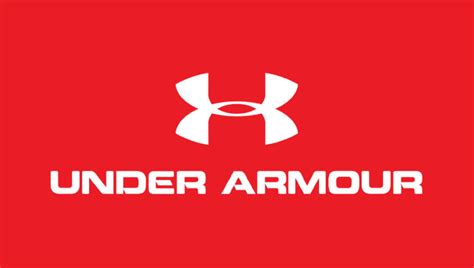
Texas Tech / UnderArmour Athletic Font for any of ya designers out
Every font is free to download! Web about ua cadet font. Based on a heavy, blocky under armour font. Web looking for under armour fonts? Modify it, customize it, use it on. Click to find the best 1 free fonts in the under armour style.
Every font is free to download! Click to find the best 1 free fonts in the under armour style. Modify it, customize it, use it on. Based on a heavy, blocky under armour font. Web looking for under armour fonts? Every font is free to download! Web about ua cadet font.